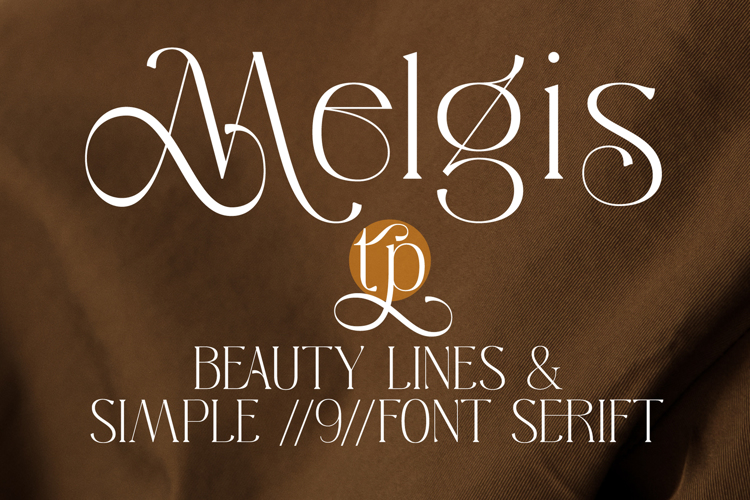
Melgis Tp Font
Melgis Tp Beauty Line Serif Font with beautiful curved lines, it becomes a complete beauty in one unit. Melgis Tp is a 9 weight font family ideal for beauty products, logos, magazines and posters.
This font is ideal for beauty brand design with swash glyph suitable for your beautiful elegant design concept.
Melgis Tp – Beauty line serif font & simple sans serif font style for Poster, Magazine, Beauty brand design.